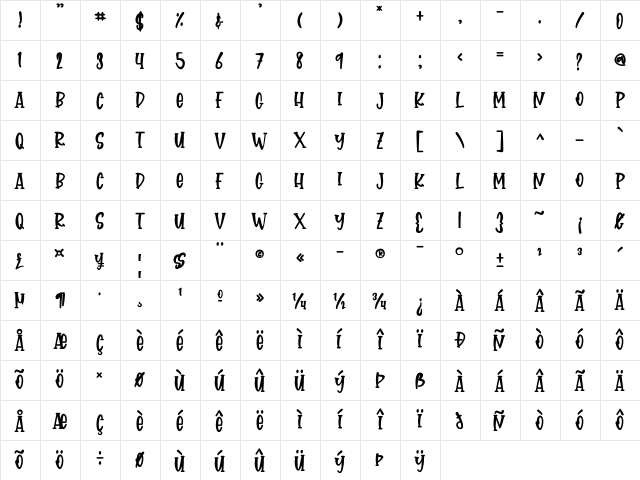
strawberry cheesecake Regular Font Preview
strawberry cheesecake Regular
strawberry cheesecake Regular Font Details
| Designer | Arief Tri Sulistiyono |
Design Context for strawberry cheesecake Typeface
strawberry cheesecake is a composed and adaptable typeface that performs quietly and consistently across a wide range of design contexts.